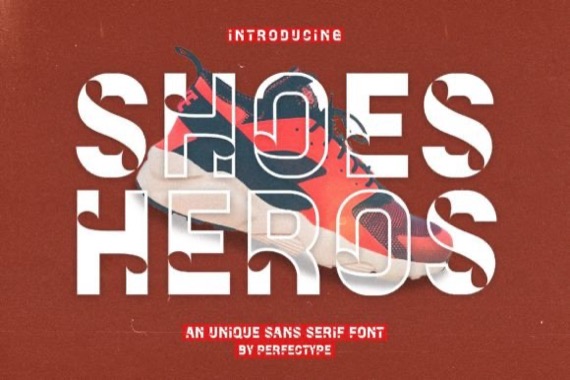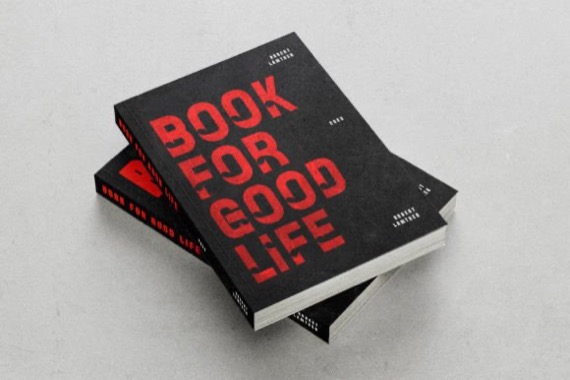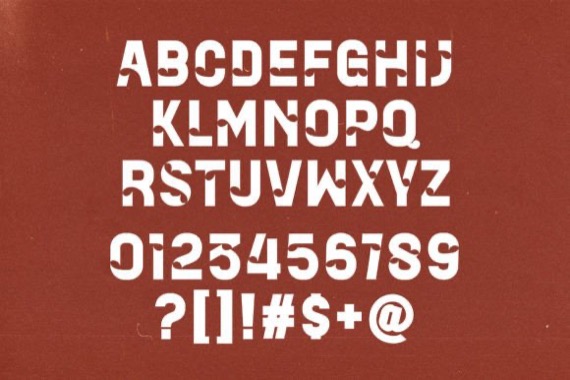
Introducing Shoes Heros Font by Perfectype, it encapsulates a rhythm that is symmetrical and balanced due to a unique mix of different sources of inspiration. Proportions are precisely adjusted with subtle contours and subtle contrasts. These shapes give the font an attractive look without compromising on elegance and minimalism, ensuring that any glyph will work well for any graphic design purpose such as brochures, videos, advertising branding, logos, magazines, layout designs, posters, post templates, games and others
Shoes Heros Vintage Display Font
Designer, Publisher: Perfectype